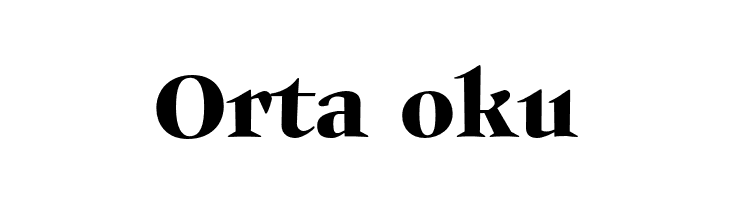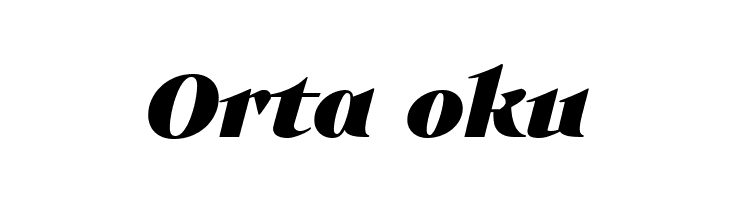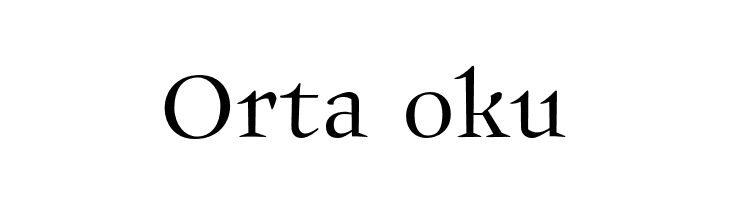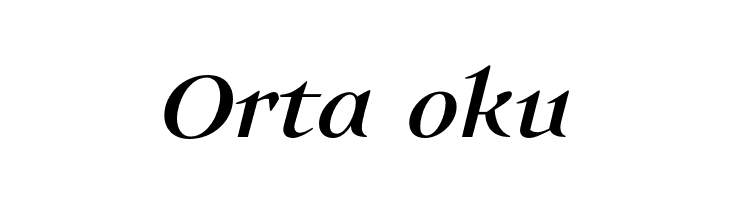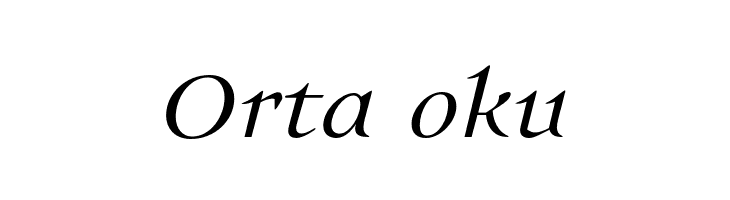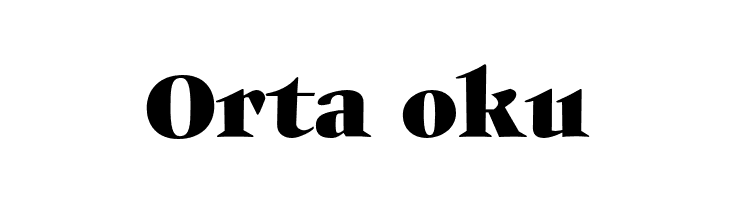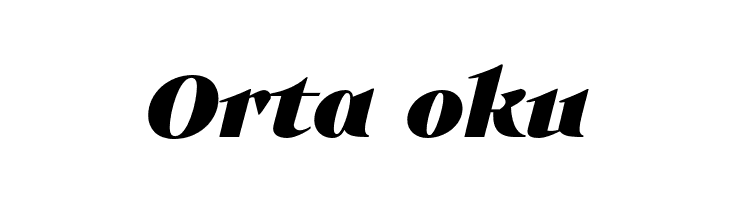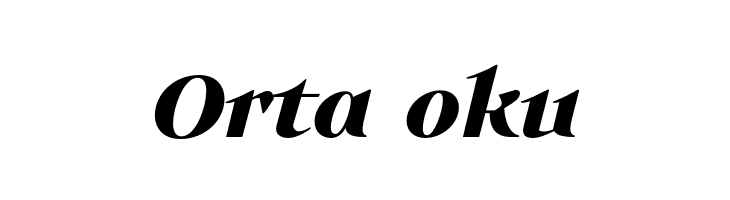
• Auxerre 76 Bold Italic reduced
A bold, italic serif font with strong strokes and pronounced serifs.
• Auxerre 85 Black reduced
A bold, serif font with strong strokes and a classic yet modern aesthetic.
• Auxerre 86 Black Italic reduced
A bold, italic serif font with high contrast and sharp serifs.
• Auxerre-BlackItalicreduced
A bold, italic serif font with a dynamic and authoritative style.
• Auxerre-Blackreduced
A bold, high-contrast serif font with a dramatic and elegant style.
• Auxerre-BoldItalicreduced
A bold, italic serif font with a dynamic and sophisticated style.
• Auxerre-Boldreduced
A bold serif font with high contrast and sharp serifs, ideal for impactful headlines.
• Auxerre-Italicreduced
Elegant italic serif font with a classic and sophisticated style.
• Auxerre-LightItalicreduced
A refined, elegant serif font with a light, italicized style.
• Auxerre-Lightreduced
A classic serif font with elegant, refined letterforms and delicate serifs.